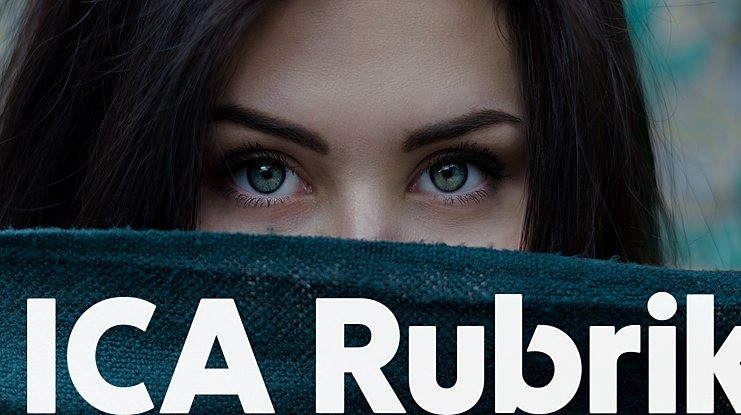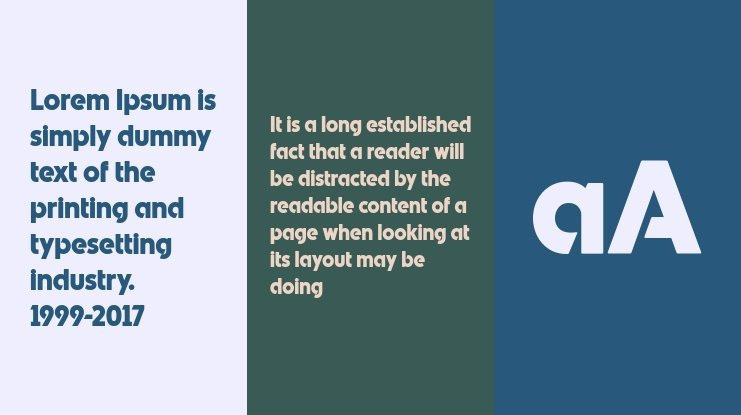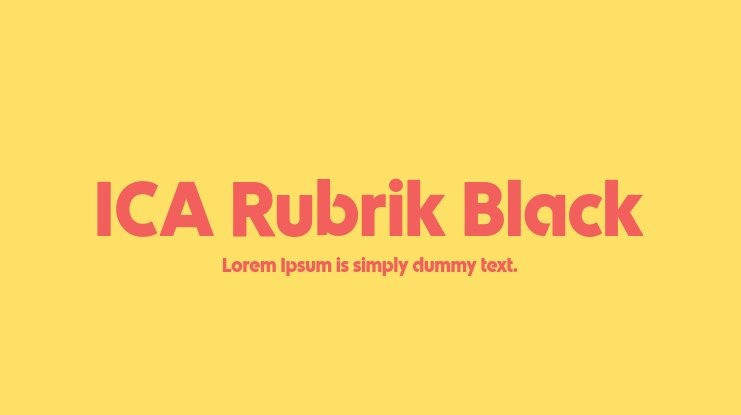
ICA Rubrik Black Font
ICA Rubrik Black Sans Serif Font by FamiljenPangea, This font is the perfect way to add style and flair to your designs! The unique, sophisticated shapes and amazing mix of shapes in this font will automatically add a touch of class and sophistication. ideal for use in greeting cards, posters, product packaging, or just to add a little flair to your designs. Its simplicity will make it easy to read and you can use it anywhere you like. Grab your copy now and start making the most of it today!